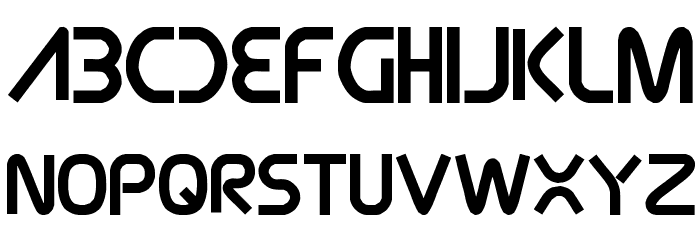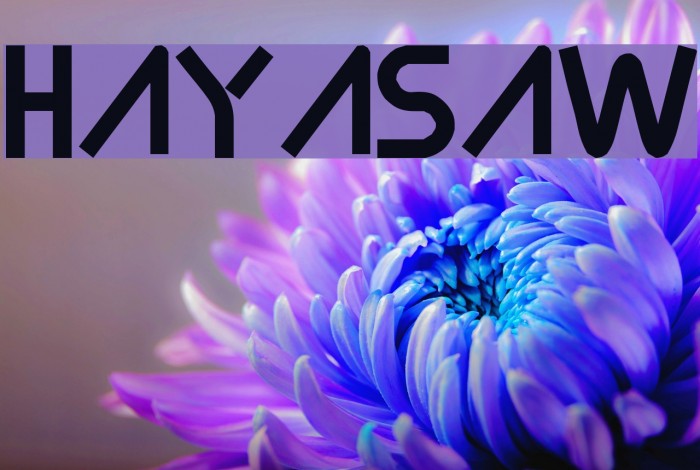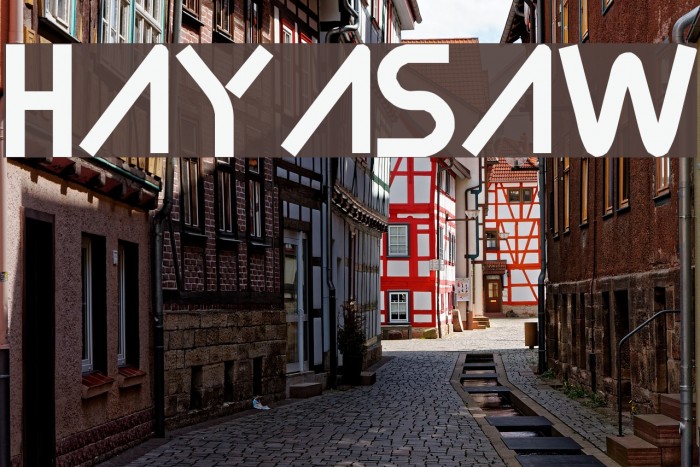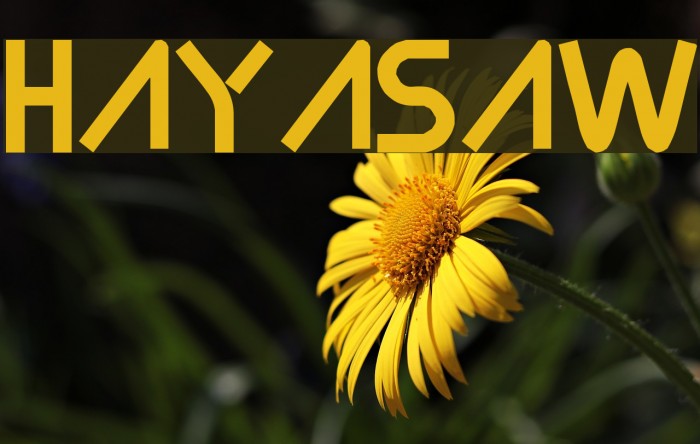
Hayasaw Font
This font features a futuristic and geometric design, characterized by its bold and angular letterforms. The uppercase letters exhibit a unique blend of sharp angles and curves, creating a visually striking appearance. The font maintains a consistent stroke width throughout, giving it a uniform and cohesive look. Its modern aesthetic is further enhanced by the distinctive cutouts and negative spaces within certain characters, adding an element of intrigue and complexity. The overall style is clean and minimalistic, making it suitable for contemporary design projects that require a bold statement.
A futuristic, geometric font with bold, angular letterforms and consistent stroke width.